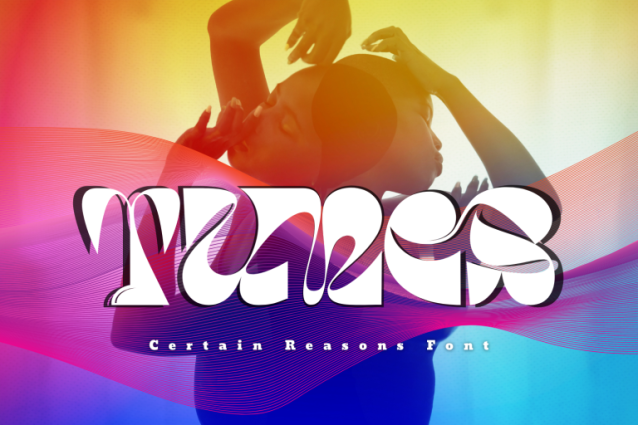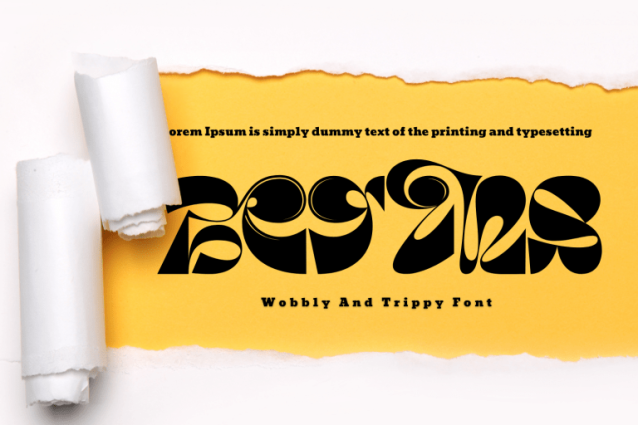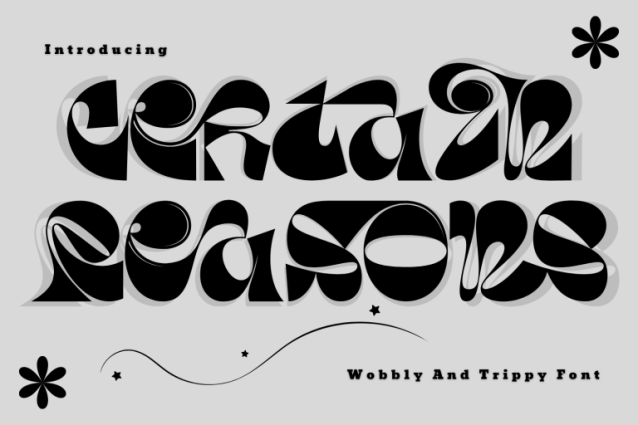
Certain Reasons Font
Certain Reasons – Psychedelic Font is a bold retro psychedelic display typeface inspired by the vibrant energy of 70s groovy design. Featuring organic shapes, fluid curves, and eye-catching swirl details, this typeface brings a playful and expressive personality to any creative project. The strong contrast between solid forms and flowing negative spaces creates a dynamic visual rhythm that feels alive and full of movement. Certain Reasons is perfect for music posters, festival branding, album artwork, retro packaging, and standout editorial headlines.
Uppercase & Lowercase Letters
Around 100 Special Ligatures & Alternates
Accented Characters for multilingual support
🔤About 100 ligatures combined with Stylistic Alternates Font: